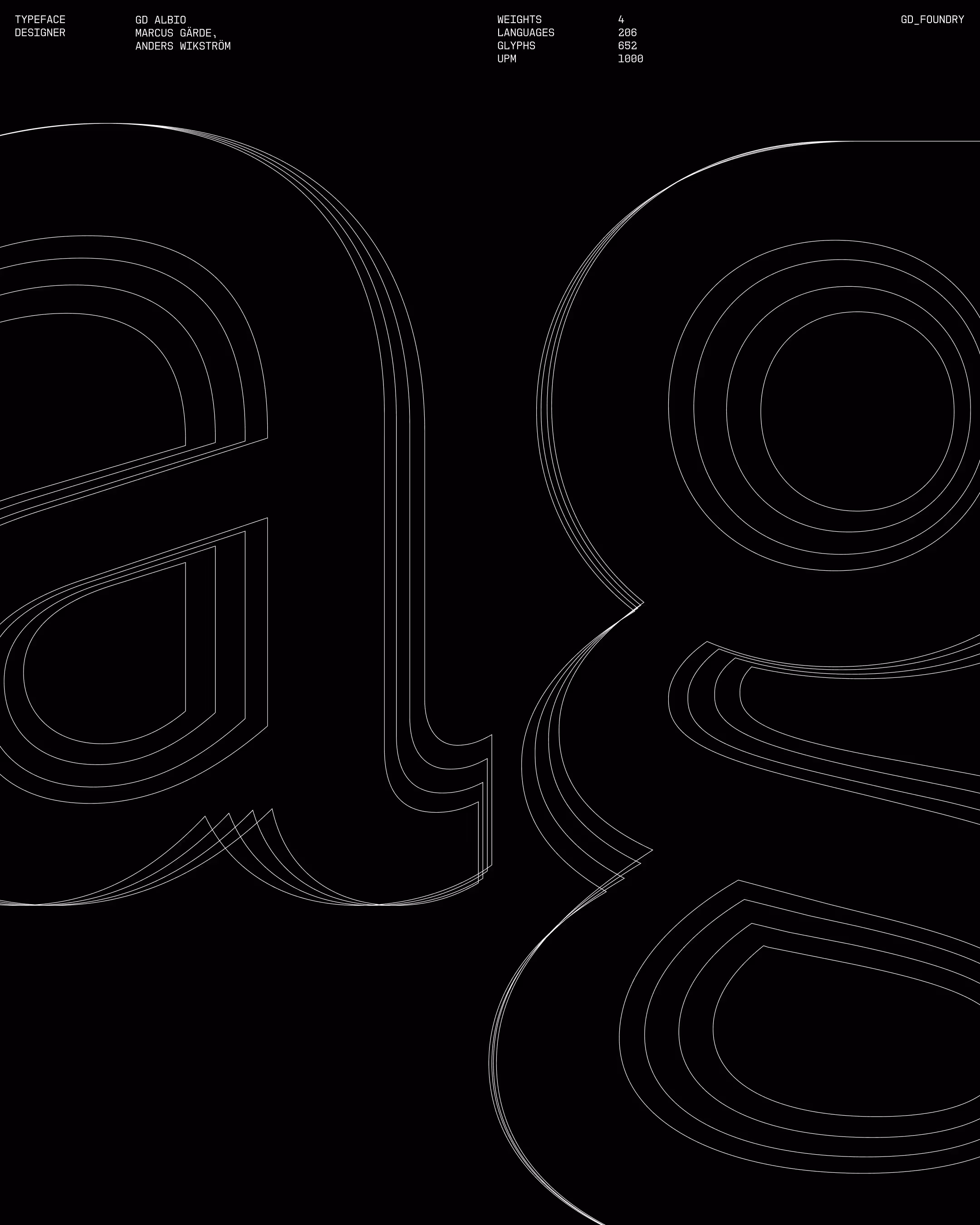
GD Albio βΒ Contemporary Reinterpretation of Gill Sans
Gill Sans, originally created by Eric Gill (1882β1940), the British sculptor, typeface designer, and printmaker β stands as one of the most iconic expressions of early 20th-century British design. A central figure within the Arts and Crafts Movement and an early advocate of modernist principles in typography, Gill sought to bring human warmth and clarity to the mechanical age. Building on this legacy, GD Albio presents a contemporary reinterpretation of Gillβs vision. Rather than a strict revival, it refines the aesthetic spirit of Gill Sans through subtle recalibrations of proportion, rhythm, and form. These adjustments create a renewed sense of balance and poise, revealing the quiet elegance that lies at the heart of Gillβs original design. GD Albio continues Gillβs pursuit of simplicity and integrity β celebrating clarity without rigidity, craftsmanship without nostalgia. It is a typeface rooted in tradition yet shaped by a modern sensibility: a familiar presence, newly refined.
Marcus GΓ€rde,
Anders WikstrΓΆm
Grotesk
Functional without being dull, minimal without being sterile, a typeface that works effortlessly in body text but still knows how to hold a headline. It balances practicality with personality, delivering clarity without ever feeling cold. Itβs versatile, confident, and quietly expressive, the kind of typeface that adapts to every context while retaining its own distinct character.